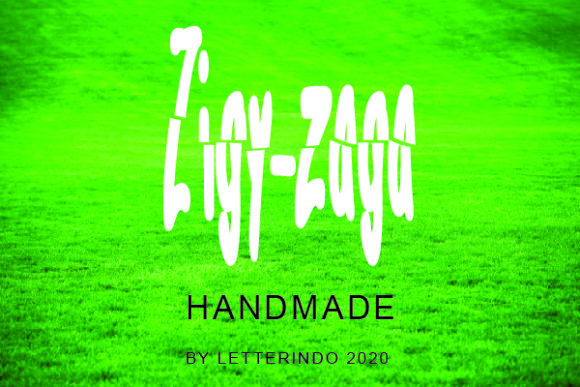
In the realm of creativity, where words and visuals dance, lies the Zigy Zaga Font, a masterpiece crafted by johndesign540. This display font, with its tantalizing quirks and captivating charm, is a true game-changer in the world of typography. Join us on an enchanting journey as we unveil the captivating magic of Zigy Zaga, a font that will ignite your imagination and transform your designs into captivating works of art.
Zigy Zaga isn't just a font; it's an adventure, a journey into a realm where the ordinary becomes extraordinary. Its distinctive glyphs, reminiscent of a playful dance, evoke a sense of whimsy and wonder. Whether you're crafting logos that sizzle or branding that bursts with personality, Zigy Zaga is your passport to a world of endless possibilities.
From the moment you lay your eyes upon Zigy Zaga, you'll be captivated by its versatility. This font flawlessly adapts to any context, effortlessly enhancing your designs with its playful yet sophisticated touch. Whether you're a seasoned graphic artist or just starting, Zigy Zaga will become your trusty companion, guiding you towards typographic excellence.
With Zigy Zaga, you'll unlock a treasure trove of creative opportunities. Create logos that dance off the page, branding that captivates at first glance, and social media posts that spark engagement. This font is a symphony of style, a conductor leading your designs to new heights of visual appeal.
So, dear seeker of typographic brilliance, allow Zigy Zaga to be your muse, your guiding light in the realm of creativity. Let its quirky charm and undeniable charisma infuse your designs with a life of their own. Unleash the power of imagination, embrace the magic of Zigy Zaga, and watch as your creations transform into masterpieces that speak volumes.